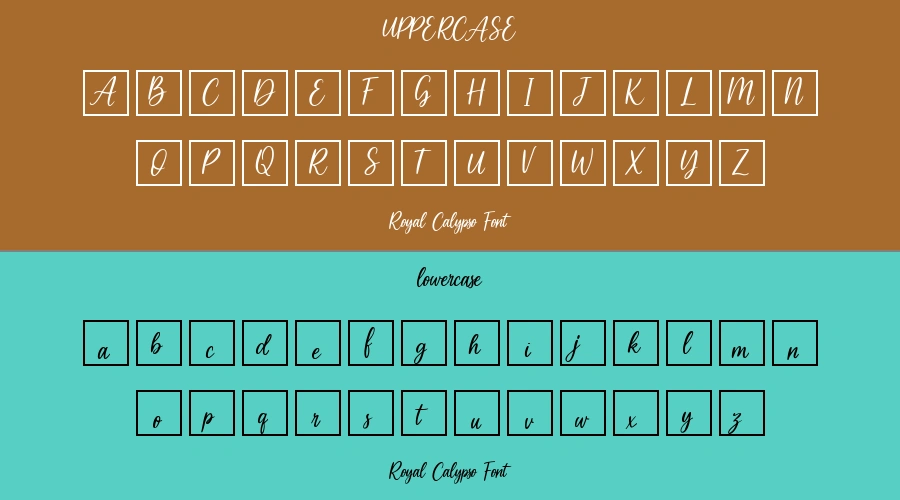
About Royal Calypso Font
Designed with precision, Royal Calypso Font merges confident strokes with memorability in every character. This versatility makes it particularly effective for billboard design, where durability and reliability directly impact communication quality. Each letterform demonstrates meticulous craftsmanship.
Technical excellence shines through elements like elegant proportions and mid-word alternates, enhancing typographic versatility. In advertisements settings, Royal Calypso Font proves its worth through superior small text rendering. The thoughtful execution of descender depth and industrial acceptance ensures professional results.